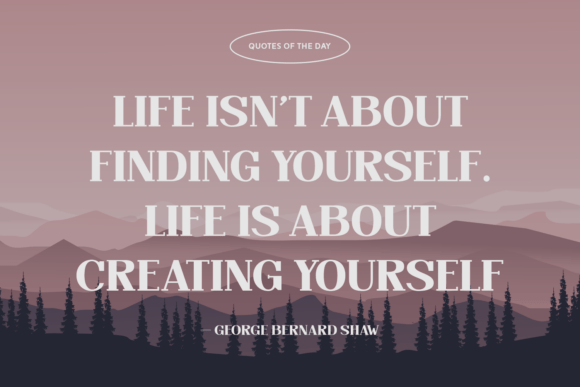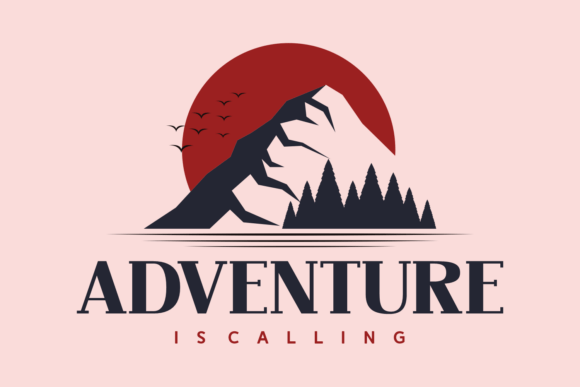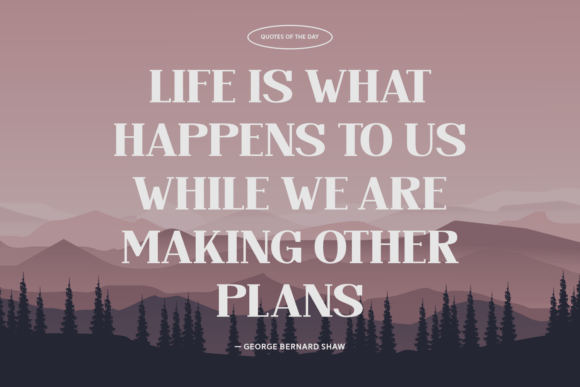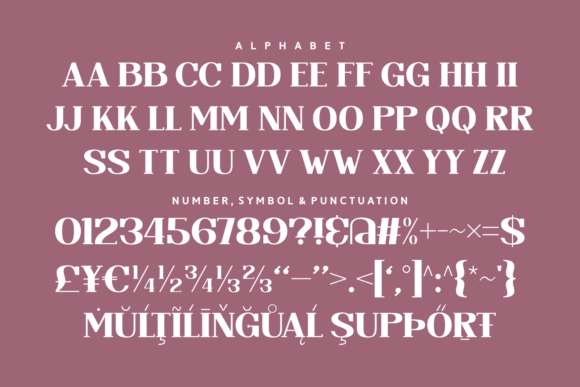
Unveiling “Drowned Dreams”: The Elegant Serif Font for Modern Designers
In the realm of typography, a font can make or break the visual identity of a design project. For designers and crafters seeking to elevate their work with a touch of sophistication and modernity, “Drowned Dreams” emerges as a game-changer. This incredibly refined serif font is tailored to bring an air of elegance to various design applications, from photography projects and apparel to book covers and branding.
Aesthetic Versatility
“Drowned Dreams” is not just a font; it’s an experience. Its refined serifs and clean lines make it the perfect complement to photography projects, adding a layer of depth and emotion to the visuals. For apparel designs, it provides that accentuated touch of authenticity, making the designs stand out with a unique charm. The font’s grace and sophistication are particularly suited for book covers and brands looking to establish a strong visual identity.
Applications Galore
The versatility of “Drowned Dreams” extends far beyond traditional design realms. Here are some of the areas where this font truly shines:
- Cards and Greeting Cards: Infuse a clean, warm, and charming aesthetic into your cards, making them perfect for any occasion.
- Logotypes and Magazine Layouts: Its elegant presence makes your brand logos and magazine layouts look sophisticated and engaging.
- Packaging Designs: Elevate your packaging with a silky smooth addition that captures trendy vibes in a lovely fashion.
- Quote Presentations: Make your quote presentations look spectacular with a font that understands the depth of expression.
- T-Shirt Designs: A perfect choice for t-shirt designs, adding a modern and stylish appeal.
Multilingual Support
In a globalized world, design requirements often demand multilingual support. “Drowned Dreams” steps up to this challenge with its comprehensive multilingual support, making it an ideal partner for designers and brands with a global audience. Whether your project demands English, Spanish, French, or any other language support, “Drowned Dreams” ensures consistency and elegance across all linguistic and cultural boundaries.
Why Choose “Drowned Dreams”?”
Choosing “Drowned Dreams” for your design projects comes with numerous benefits:
- Elegance and Modernity: A perfect blend of traditional serifs and modern design sensibilities.
- Versatility: Suitable for a wide range of design applications.
- Multilingual Support: Cater to a global audience without compromising on design aesthetics.
- Expressiveness: Each letter is designed to tell a story, adding depth to your designs.
| Font Name | Drowned Dreams Font |
| Author | Anto (7NTypes) |
“Drowned Dreams” is more than just a serif font; it’s a design statement. Its elegant and modern aesthetic, combined with its versatility and multilingual support, makes it an indispensable tool for designers and crafters aiming to leave a mark in the world of design. Whether you’re working on a photography project, designing apparel, or crafting a brand’s visual identity, “Drowned Dreams” invites you to explore unseen depths and expressiveness in typography. Dive into the world of refined elegance and modern design with “Drowned Dreams” – where every letter tells a story.